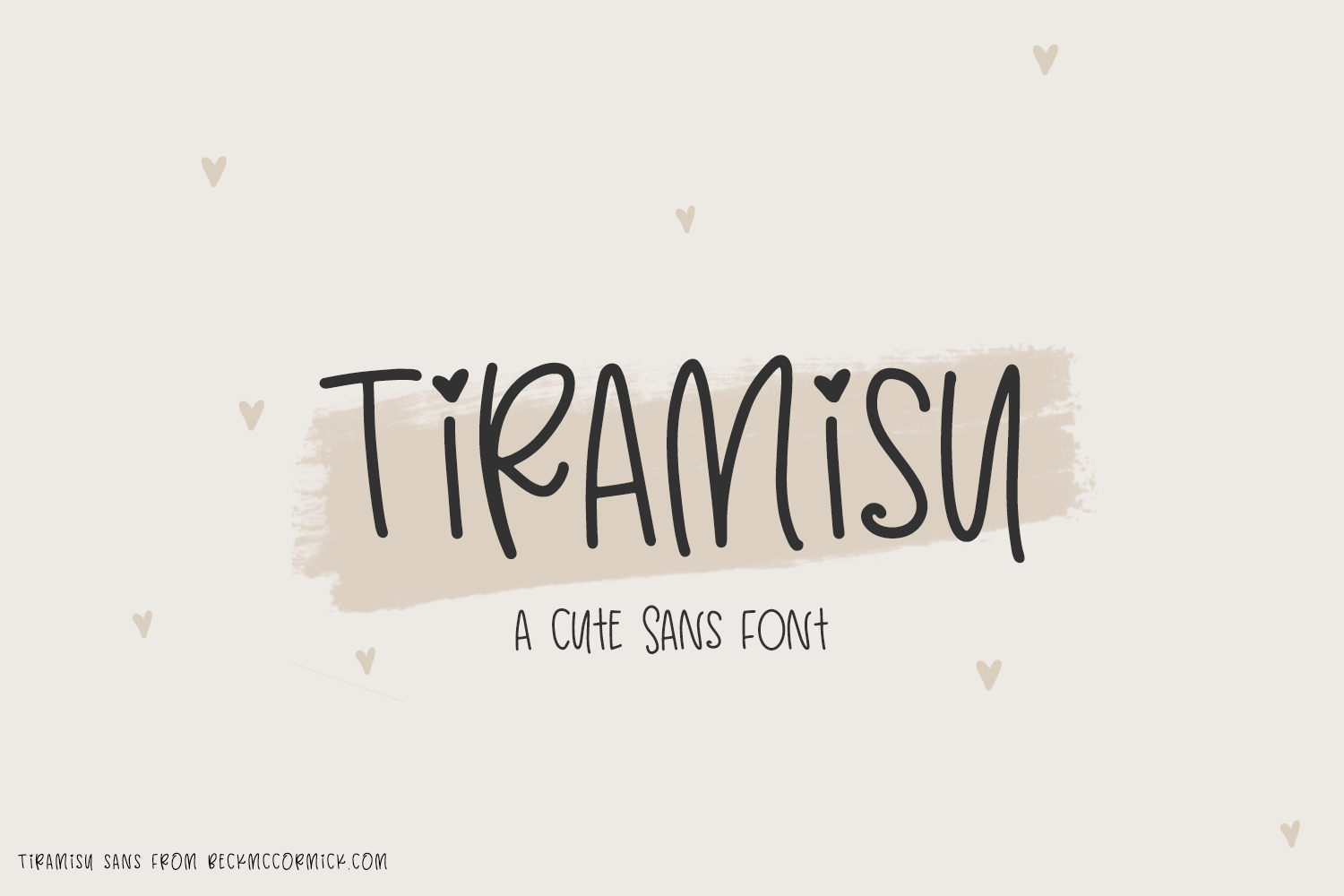
Tiramisu Font
Introducing Tiramisu Sans, a cute mixed-case sans font.
Tiramisu Sans is best for:
- adorable quote graphics for social media
- playful logos + branding
- website design + website accents - think travel blogs, fashion blogs, & more
- SVG designs
- fun sticker designs
- header elements that need handwritten touch
- full upper + lowercase characters
- 2 alternate heart bullet points